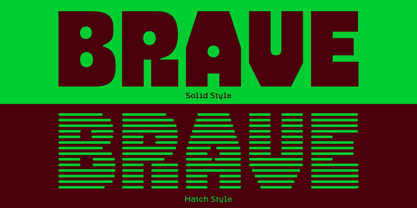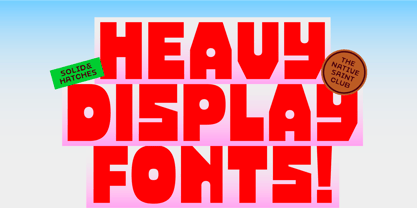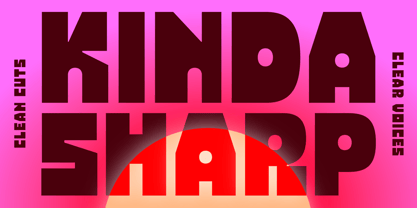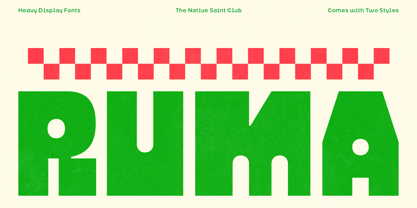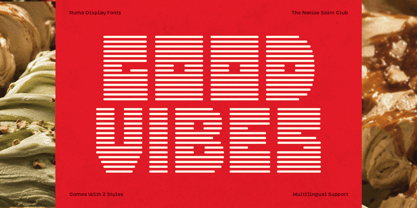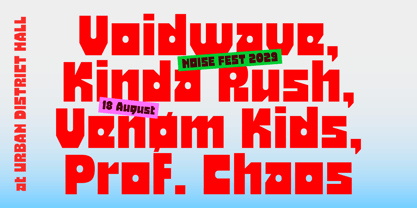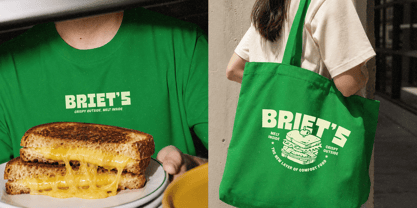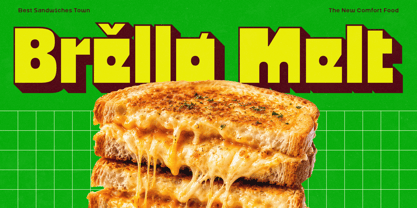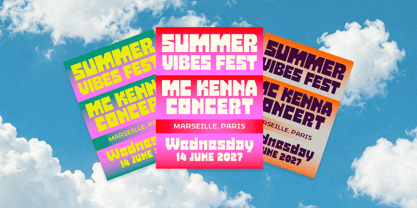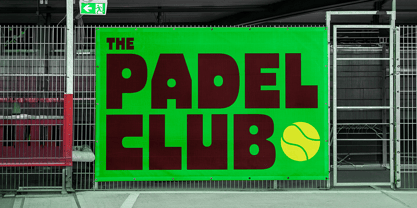
The Ruma Font Family was designed by Bagas Ferdiansah, Septianto Nugroho and published by The Native Saint Club. Ruma contains 2 styles and family package options. More about this family
TNSC RUMA is a bold display typeface featuring strong geometric shapes. Its unique and heavy glyph forms are designed to stand out in display use. It comes with two styles, including solid and striped (hatch). Perfect for posters, branding, packaging, headlines, and street-style visuals. NOTE : Please Check the Help File first and for all the characters are also available, accessible in the Adobe Illustrator Glyphs Panel, or in Adobe Photoshop Character Open Type Panel. We hope you enjoy the font, please feel free to comment if you have any thoughts or feedback. Thanks for purchasing and have fun! Regards, The Native Saint Club
Ruma